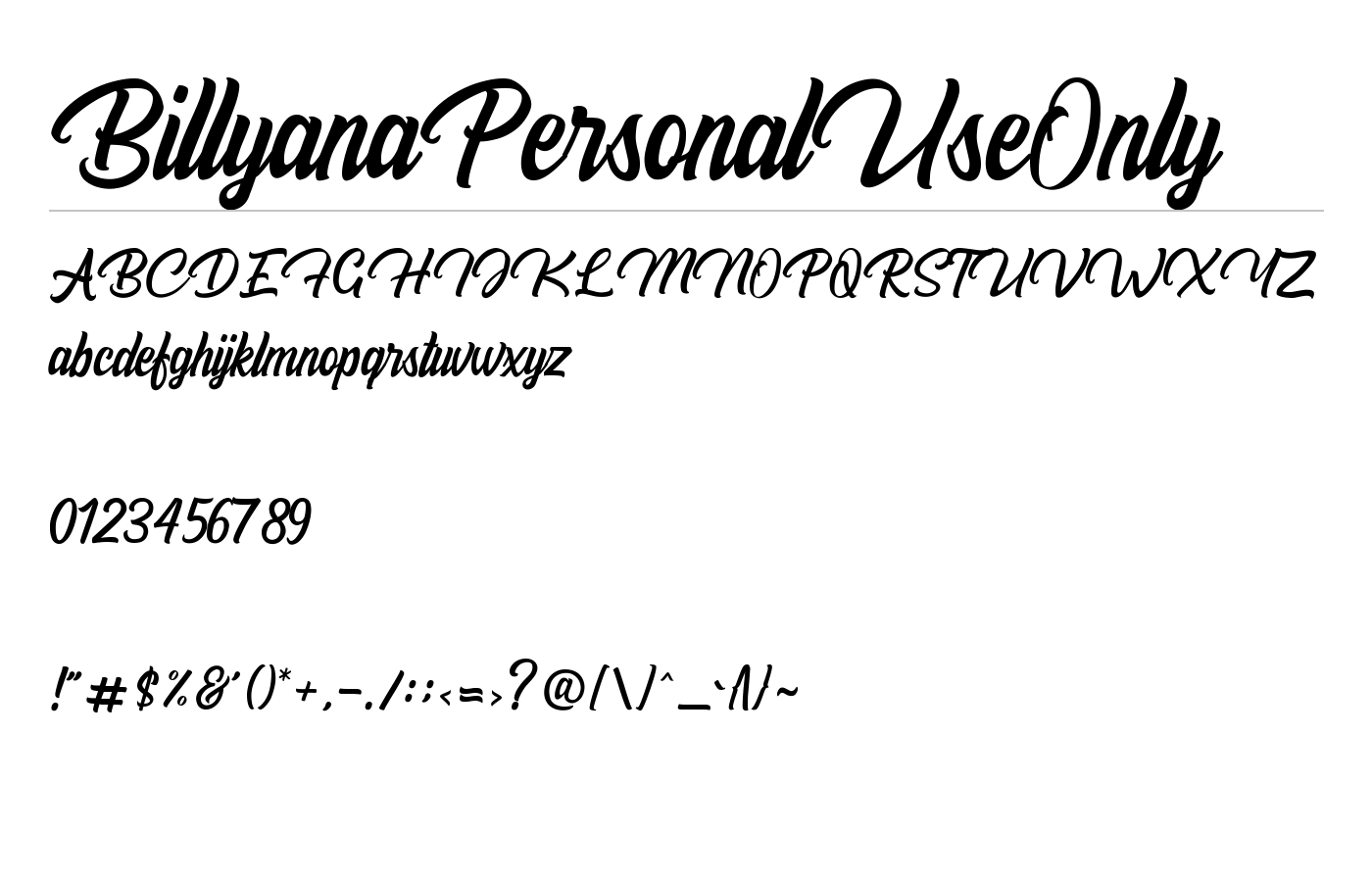
Billyana Personal Use Only is a stylish script font with a flowing, handwritten feel that combines elegance with a casual charm. It features smooth, moderately high contrast strokes and slightly condensed letterforms that make it ideal for expressive headlines, invitations, and branding that needs a personal touch. Its graceful curves and well-balanced characters bring warmth and sophistication to fashion, lifestyle, or creative projects.